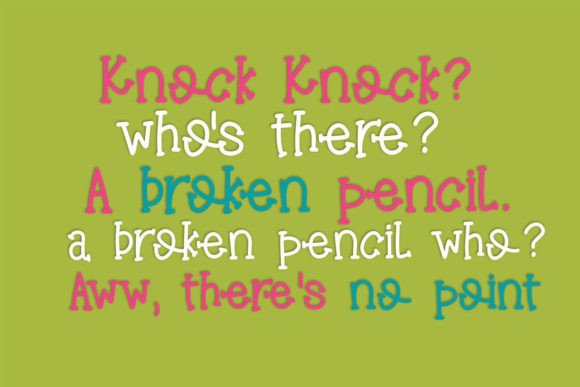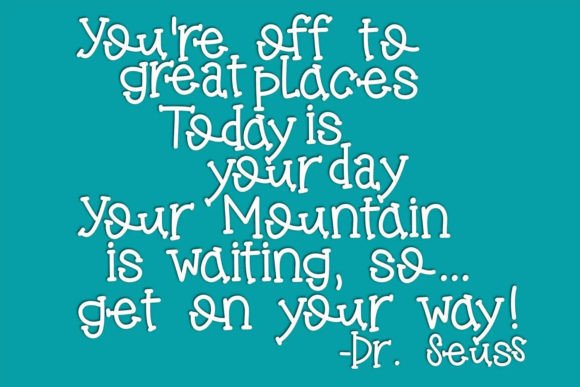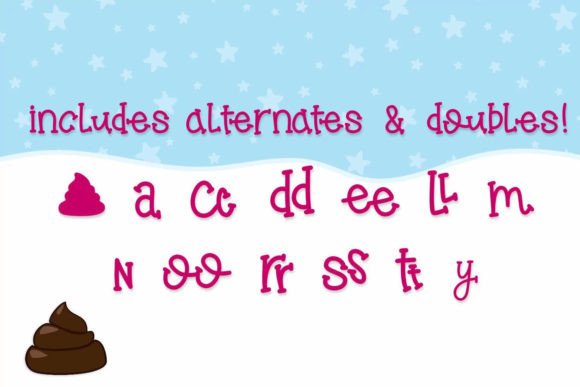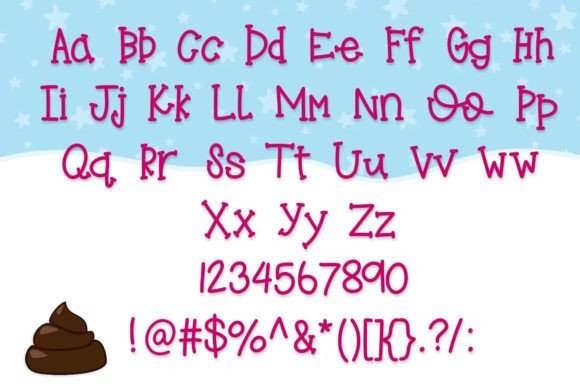
Introduction to Penguin Poop Font
Introducing Penguin Poop, a really fun font with doubles and alternates.
Using Penguin Poop is a fun way to show a little flair in your next project Use the double letters or alternates to create a fun or unique look.
Key Features of Penguin Poop Font
Why Choose Penguin Poop Font?
Penguin Poop Font offers exceptional quality and versatility, making it a valuable addition to your design toolkit. Whether you’re creating for personal projects or commercial use, Penguin Poop Font delivers professional results.